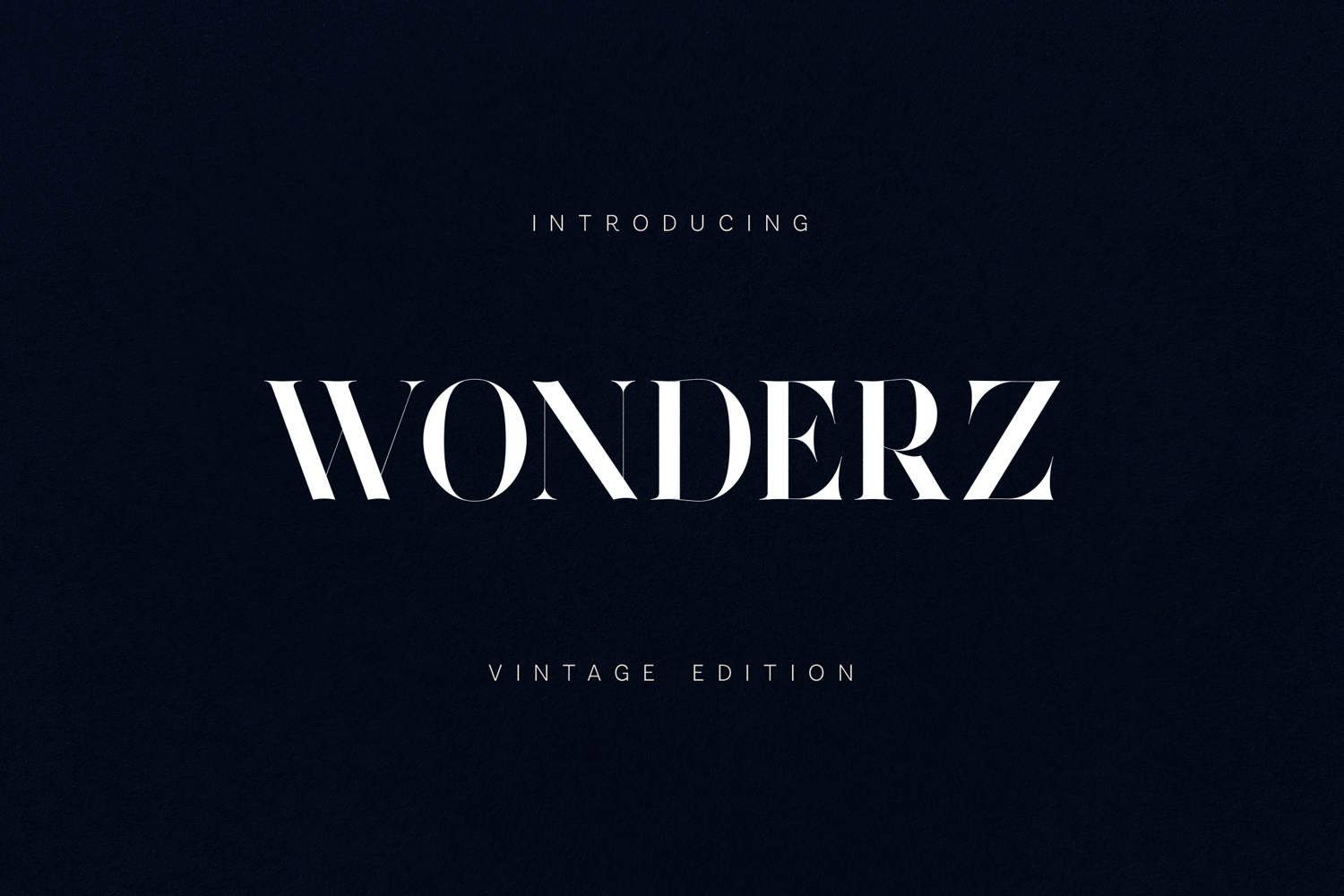
Wonderz Vintage Edition Elegant Serif Font
Wonderz Vintage Edition is a refined serif typeface that blends classic elegance with a modern editorial aesthetic. The font features graceful letterforms, high-contrast strokes, and balanced proportions that create a sophisticated and timeless typographic presence.
The design focuses on clarity and visual harmony. Thin strokes transition smoothly into stronger vertical forms, producing a refined rhythm across words while maintaining excellent readability. Subtle curves and carefully shaped serifs give the typeface a distinctive character that feels both vintage-inspired and contemporary.
Wonderz Vintage Edition was crafted to deliver strong typographic impact while remaining elegant and versatile. The uppercase characters introduce confident structure and visual authority, while the lowercase characters bring softer transitions that help text flow naturally.
Because of its balanced contrast and elegant structure, the typeface performs beautifully in typography that requires sophistication and visual refinement.
Wonderz Vintage Edition works especially well in projects such as:
• editorial typography
• magazine design
• luxury branding
• logo design
• packaging design
• visual identity systems
• modern graphic compositions
• refined typography layouts
The font includes uppercase letters, lowercase letters, numbers, punctuation, symbols, and extended multilingual language support, making it suitable for international design projects and professional creative work.
With its elegant structure, refined contrast, and timeless aesthetic, Wonderz Vintage Edition offers a sophisticated serif typeface designed to bring clarity, elegance, and classic typography into modern design.